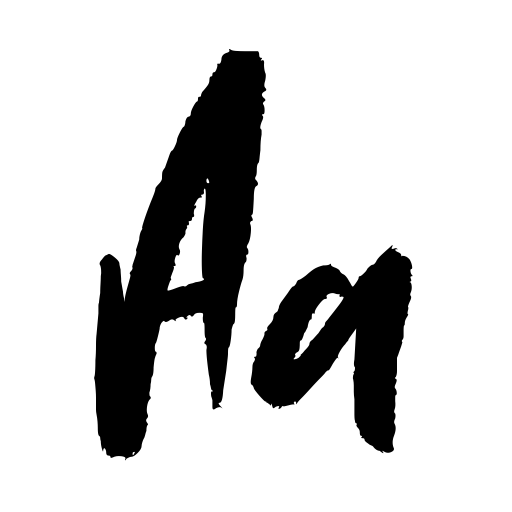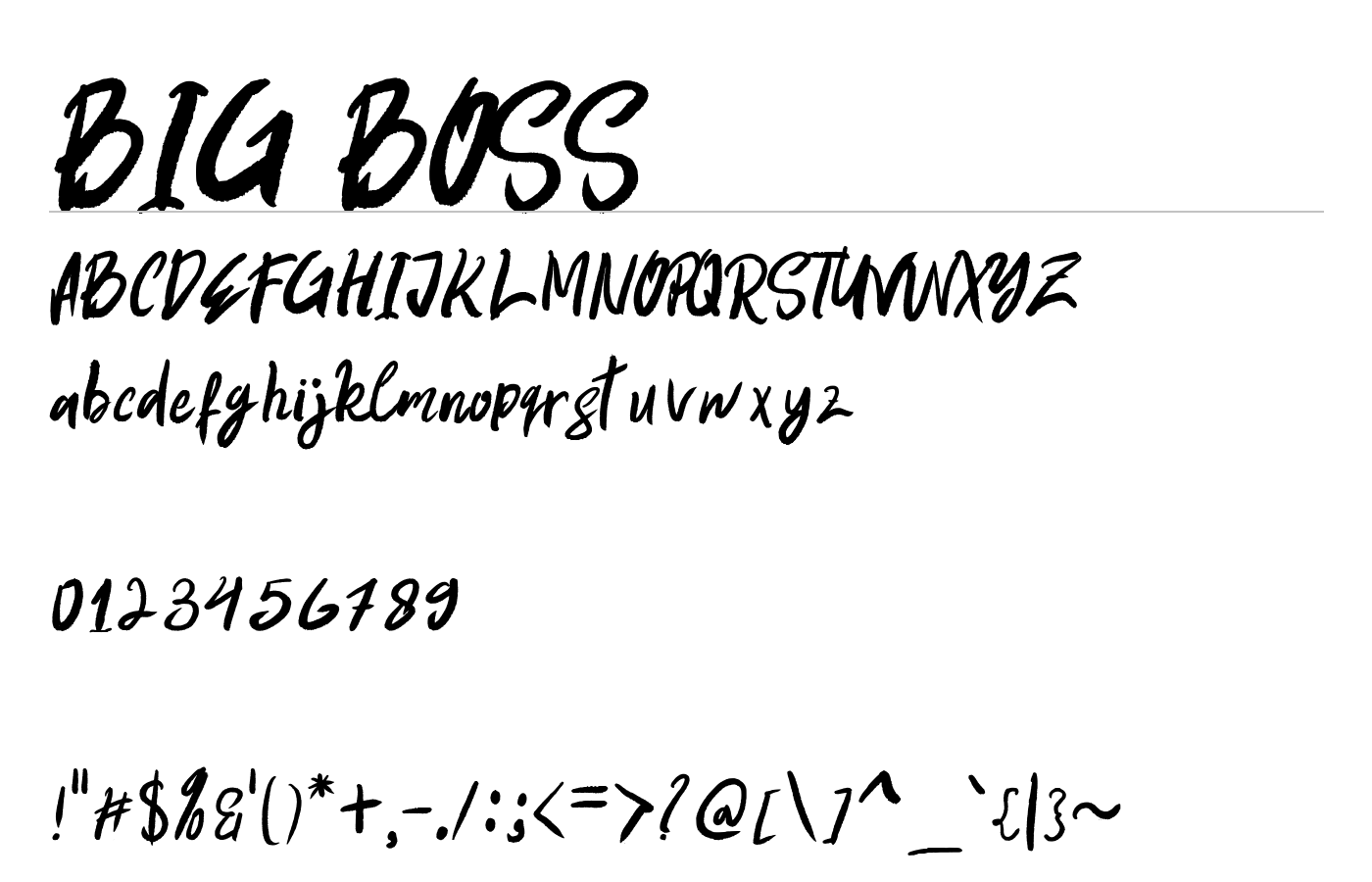
BIG BOSS is an expressive, bold script font with a hand-painted feel, featuring dynamic, irregular strokes and a casual, energetic style. Its slightly condensed letterforms and lively brush texture give it a strong personality, perfect for designs that want to convey confidence, creativity, and a touch of rebellious charm. This font works well in headlines, logos, and branding where a bold, artistic impact is desired.
BIG BOSS Font
About BIG BOSS Font